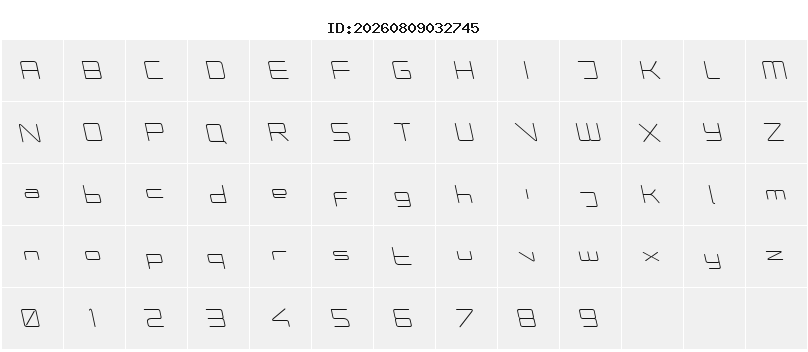
PhutureRndClsd Preview
• Font Name: PhutureRndClsd
• Font ID: 1.000;pyrs;PhutureRndClsd-A-Italic
• Full Font Name: PhutureRndClsd-A-Italic
• PostScript Name: PhutureRndClsd-A-Italic
About PhutureRndClsd.ttf
PhutureRndClsd.ttf is a modern, elegant sans-serif font designed for ultimate readability and visual harmony. Perfect for branding, headlines, web design, and print materials.